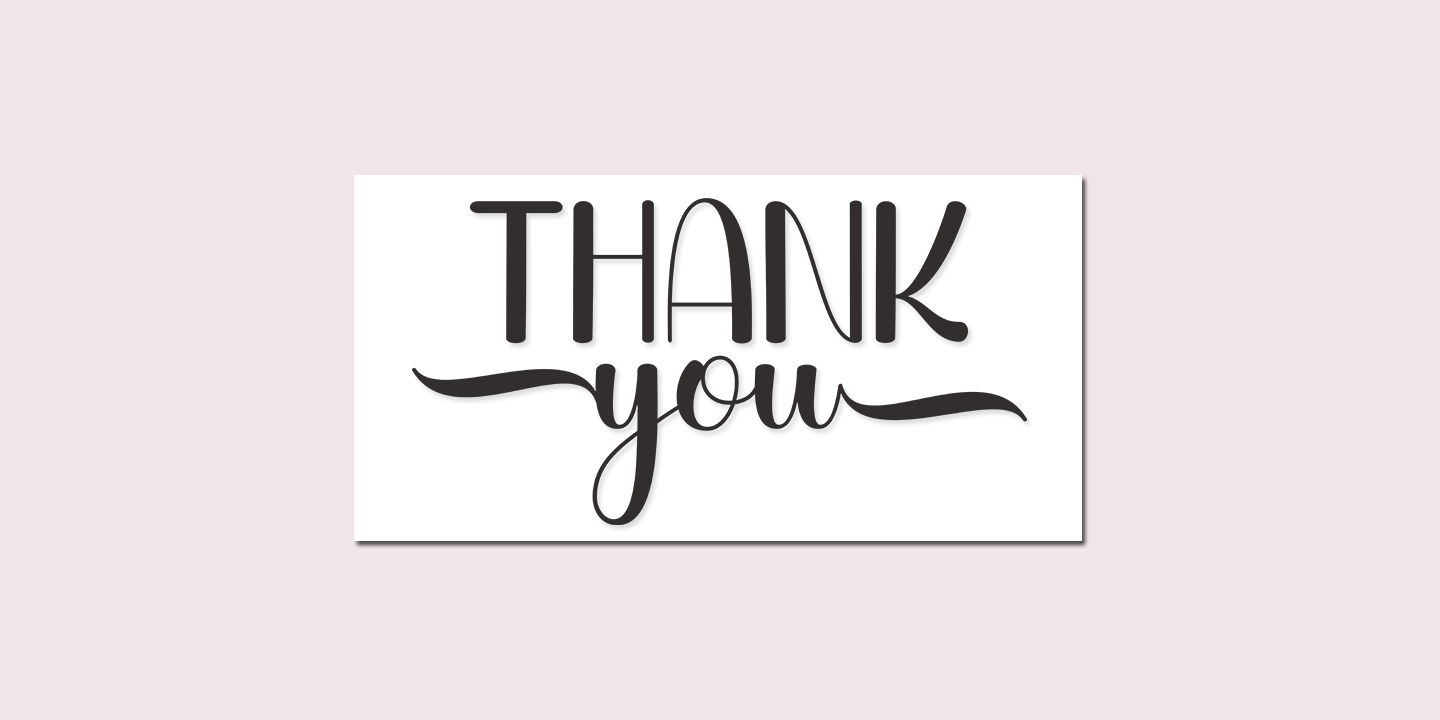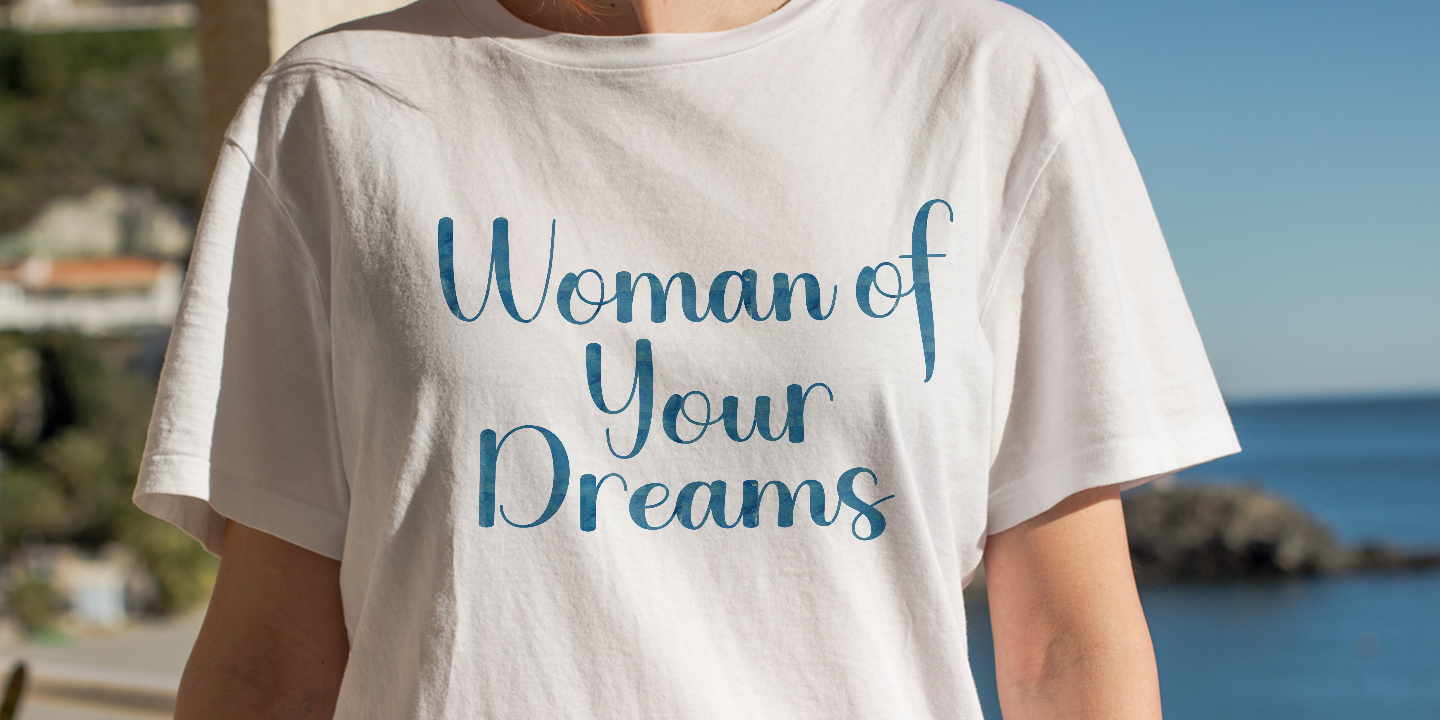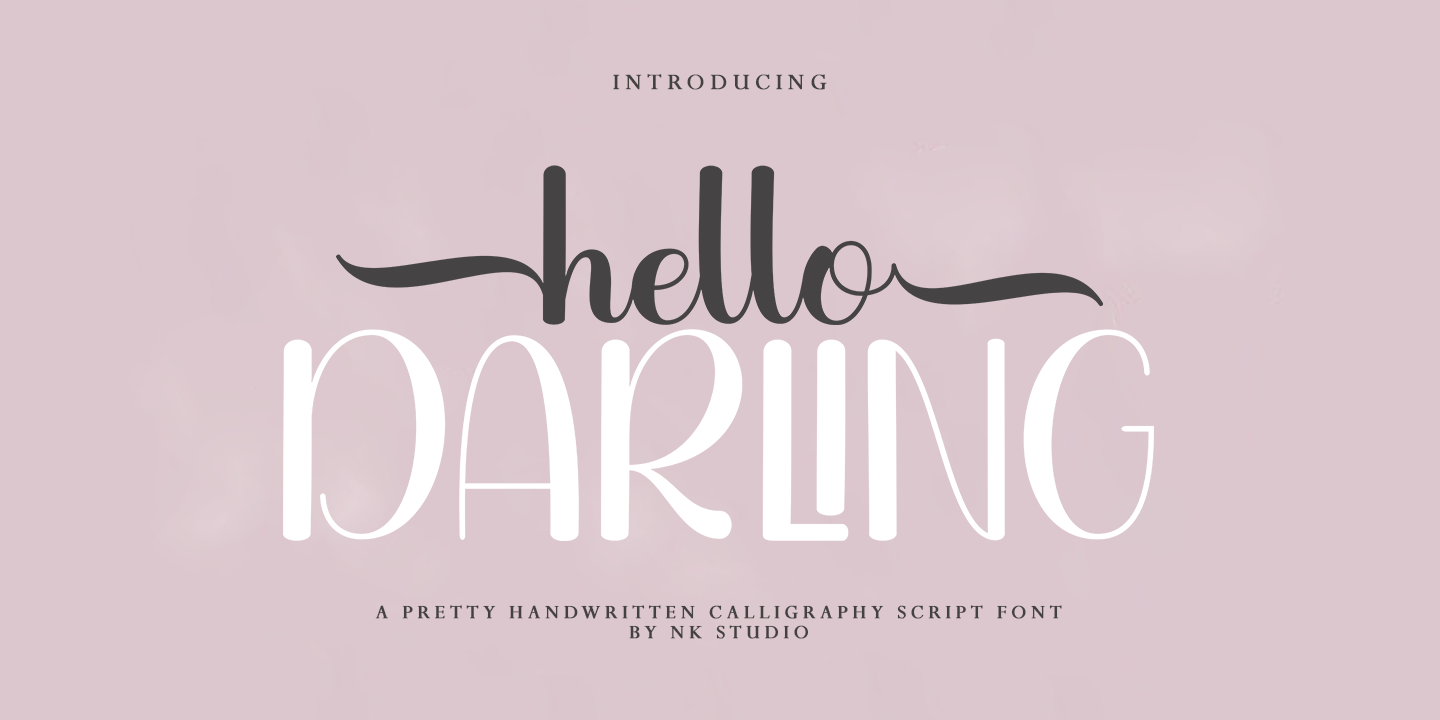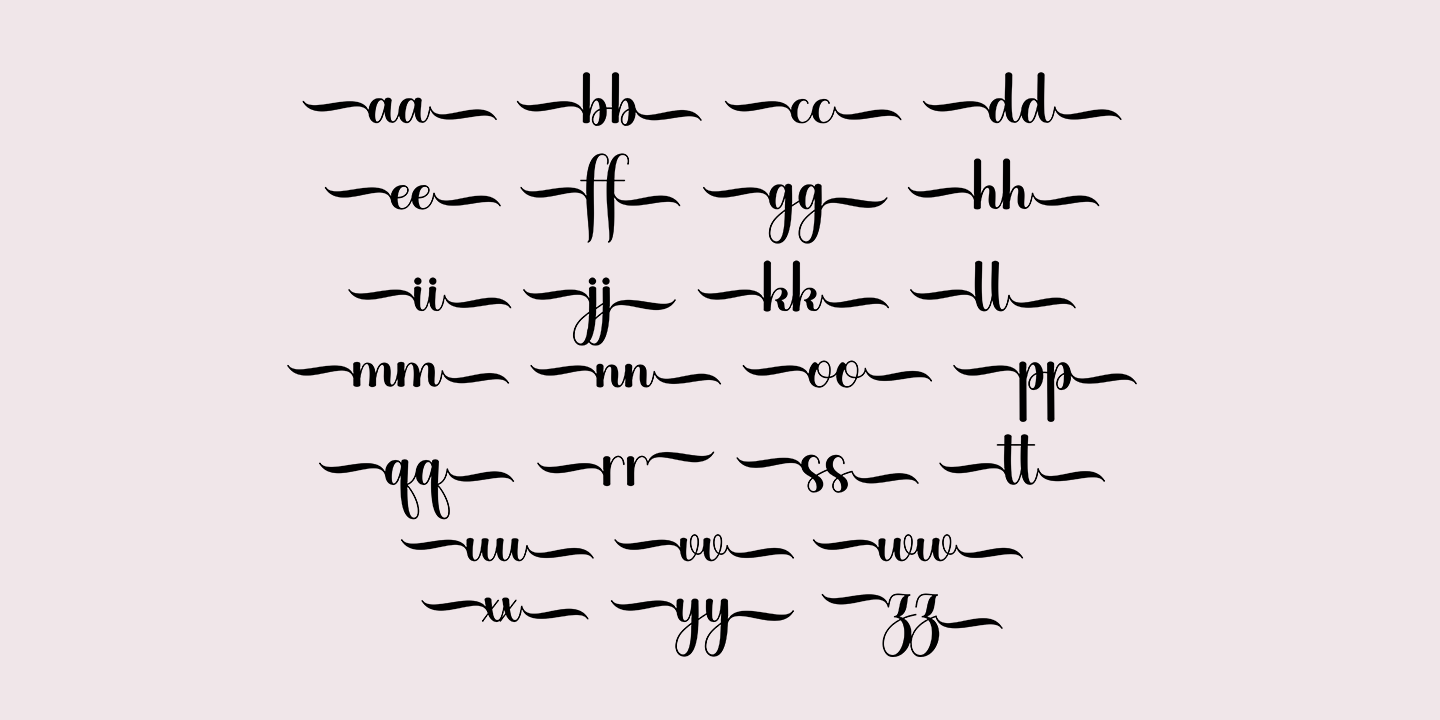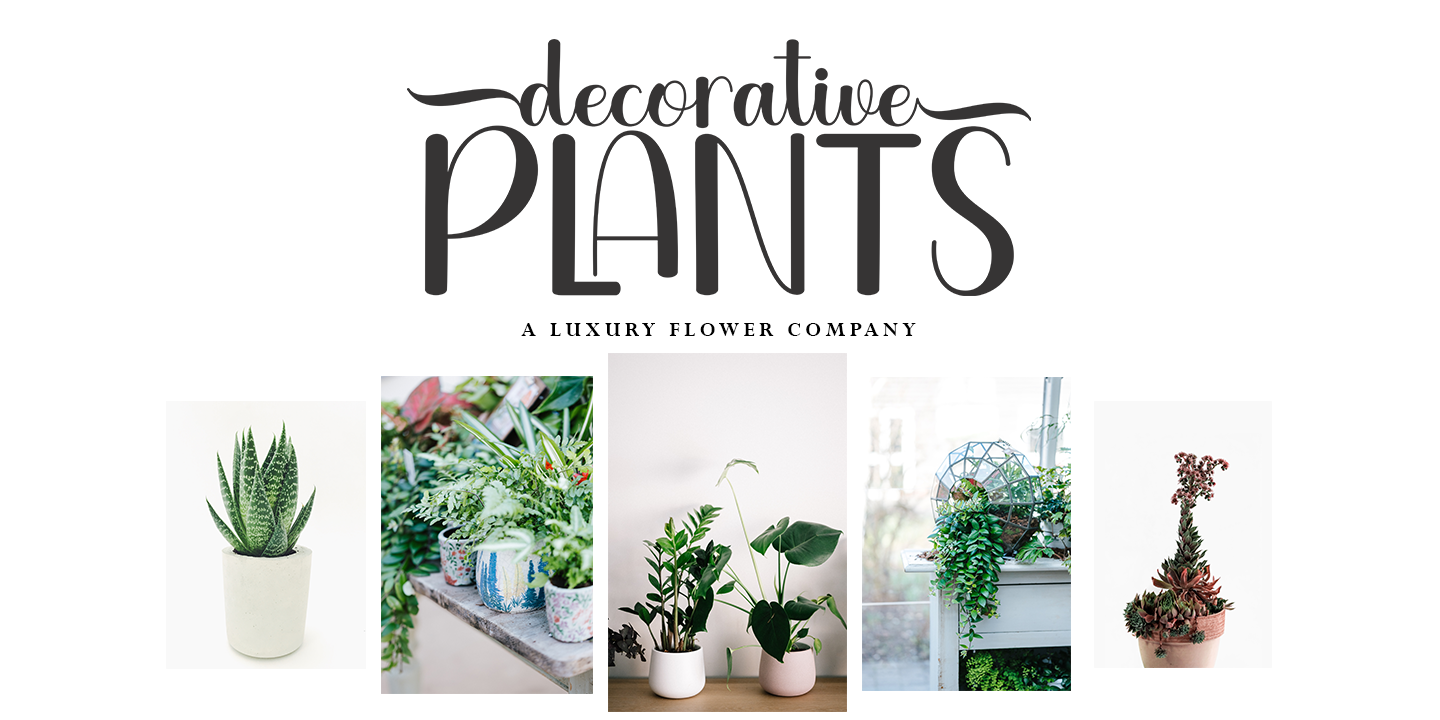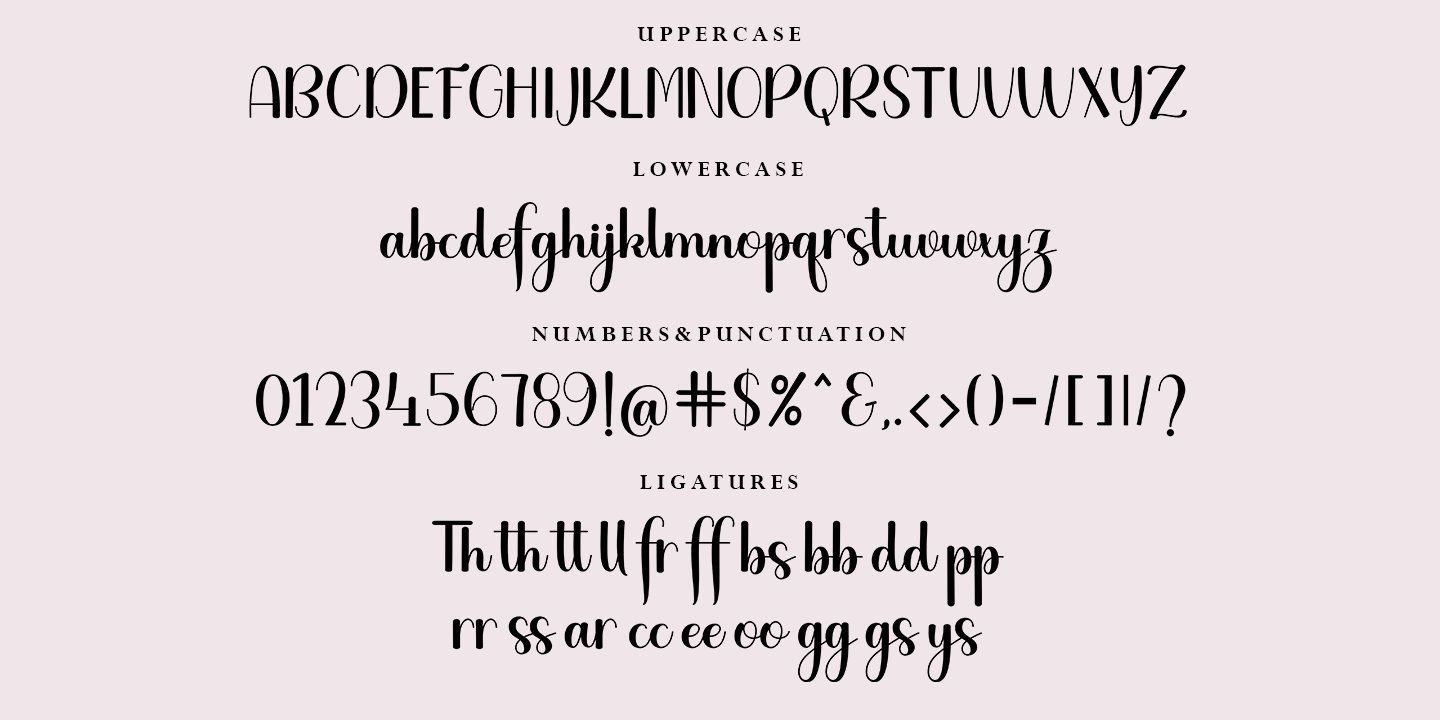
Hello Darling Regular
Your purchases include the Hello Darling Script, conjunctive handwritten script, and printed, handwritten, and printed script fonts.
Hello Darling is made side by side to work together. All lowercase letters are placed to receive a connecting tail from Hello Darling. You can mix and match the same words to your heart's content!
Hello Darling is also made with the crafter in mind: there are no closed counters on either type, meaning they can easily be used for stencils and electronic cutters such as the Cricut line and the Silhouette.
- More than 300 glyphs in the Hello Darling font, designed to work together!
- No closed counters - useful for stencils and vinyls!
- More than 200 accented characters in each font.
- Double letter binder staggered for a hand drawn look!